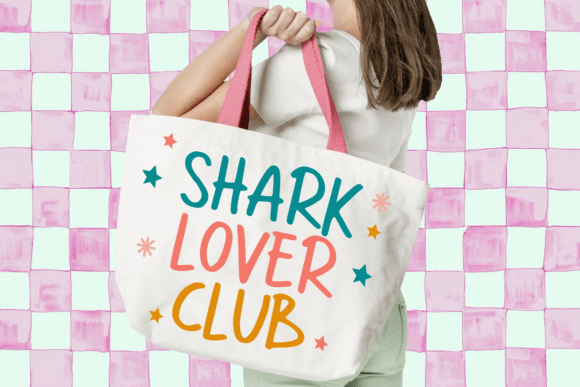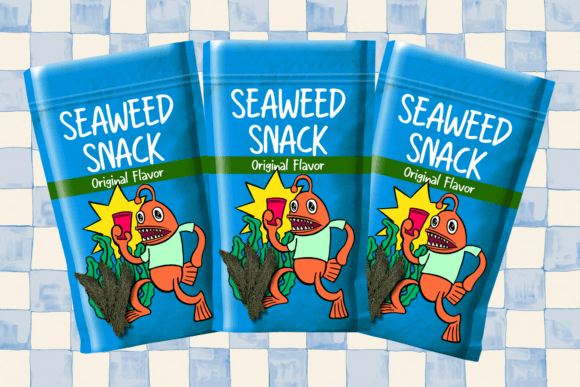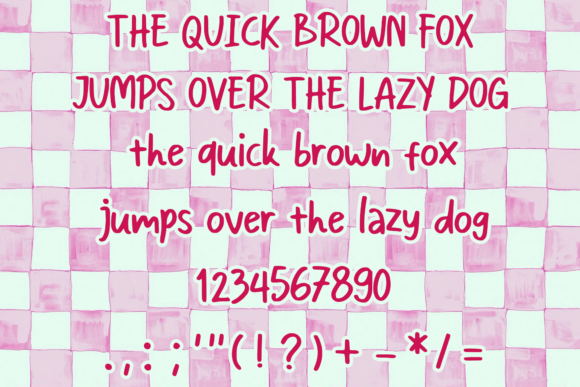
Bapak Comic Font: Elevate Your Designs with a Fun and Playful Touch
Are you looking for a font that can add a super cool touch to your designs? Look no further than Bapak Comic Font! This fun and playful comic marker font is perfect for designers and crafters who want to take their projects to the highest level. In this article, we’ll explore the features and benefits of Bapak Comic Font, and show you how to use it to create amazing designs.
What is Bapak Comic Font?
Bapak Comic Font is a unique and creative font that is inspired by comic books and cartoons. It has a distinctive marker-like feel that gives it a fun and playful look. The font is designed to be versatile and can be used for a wide range of design projects, from stickers and t-shirt designs to logo designs, magazine covers, and more.
Features of Bapak Comic Font
- Fun and Playful Design: Bapak Comic Font has a unique and playful design that is sure to grab attention. Its comic marker-like feel makes it perfect for designs that require a fun and youthful touch.
- Versatile: This font is incredibly versatile and can be used for a wide range of design projects, from digital designs to print materials.
- Easy to Read: Despite its playful design, Bapak Comic Font is easy to read, making it perfect for body text and headlines.
- High-Quality: The font is designed to be high-quality, with crisp and clean lines that will look great in any design.
Benefits of Using Bapak Comic Font
So, why should you use Bapak Comic Font in your designs? Here are just a few benefits:
- Adds a Unique Touch: Bapak Comic Font adds a unique and playful touch to your designs, setting them apart from the rest.
- Increases Engagement: The fun and playful design of Bapak Comic Font is sure to grab attention and increase engagement with your audience.
- Perfect for Kids and Adults Alike: This font is perfect for designs that are aimed at kids and adults alike, making it a great addition to any design project.
Design Ideas Using Bapak Comic Font
So, what can you create with Bapak Comic Font? Here are just a few design ideas to get you started:
- Stickers: Create fun and playful stickers that are perfect for kids and adults alike.
- T-Shirt Designs: Design amazing t-shirt designs that will stand out from the crowd.
- Logo Designs: Create unique and memorable logo designs that will help your brand stand out.
- Magazine or Book Covers: Use Bapak Comic Font to create eye-catching magazine or book covers that will grab attention.
- Comics and Cartoon Drawings: Create amazing comics and cartoon drawings that will delight kids and adults alike.
In conclusion, Bapak Comic Font is a fun and playful comic marker font that is perfect for designers and crafters who want to add a super cool touch to their designs. With its unique and versatile design, Bapak Comic Font is sure to elevate a wide range of design projects to the highest level. Whether you’re creating stickers, t-shirt designs, logo designs, or more, Bapak Comic Font is a great choice. So why wait? Download Bapak Comic Font today and start creating amazing designs!